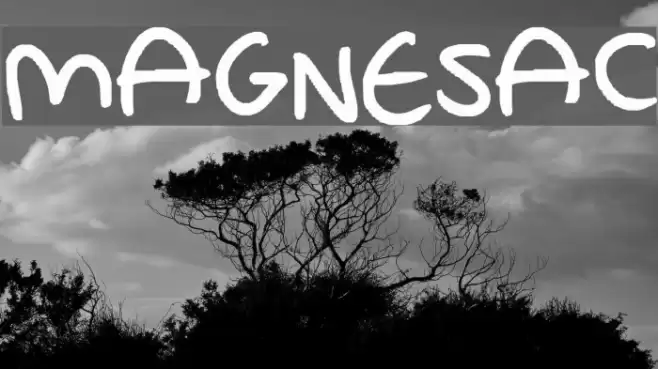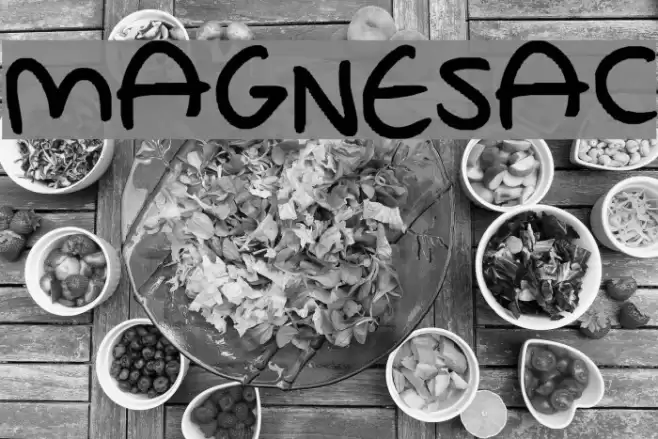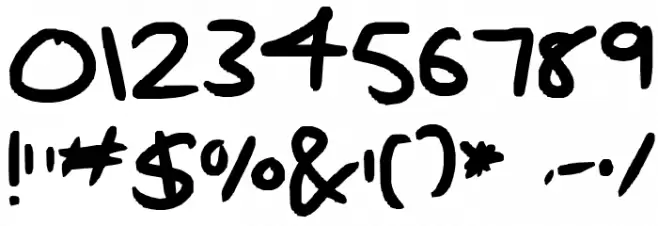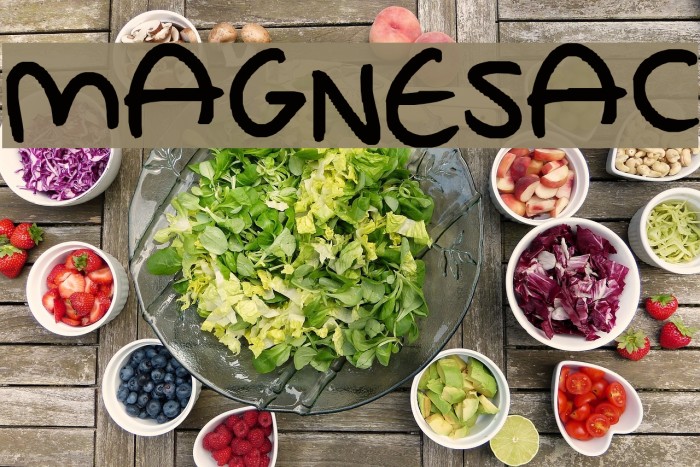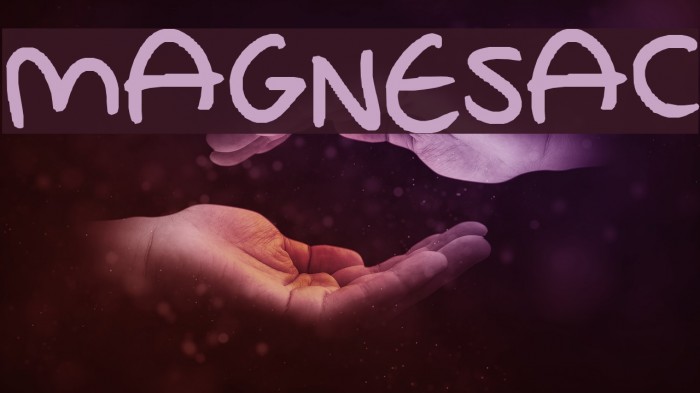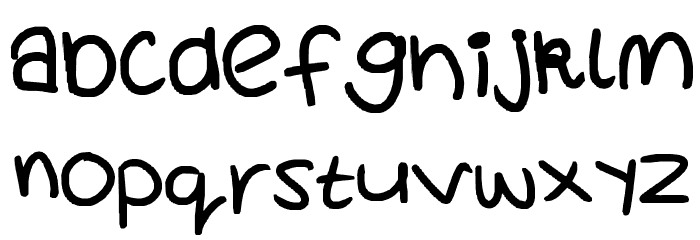
MAGNESAC Font
MAGNESAC Description
This font features a playful and informal handwritten style, characterized by its rounded and slightly irregular letterforms. The strokes are bold and consistent, giving it a casual yet legible appearance. The uppercase and lowercase letters maintain a cohesive look, with a slight slant that adds to its dynamic feel. Numbers and special characters are designed to match the overall style, making it versatile for various uses. The font's organic and friendly aesthetic makes it suitable for projects that require a personal touch.
A playful, informal handwritten font with bold, rounded strokes from Uncategorized fonts.
- Proposed Projects: Ideal for children's books, greeting cards, casual branding, and social media graphics.
- Overall Style: Casual, Playful
- Use Case: Headlines, Informal text, Branding